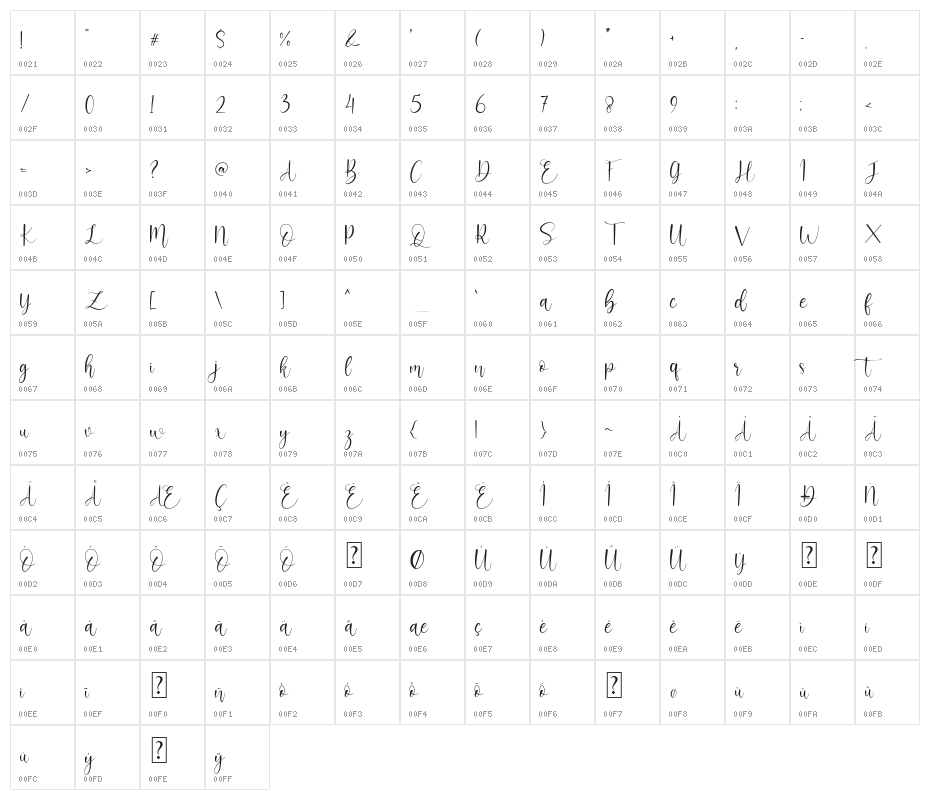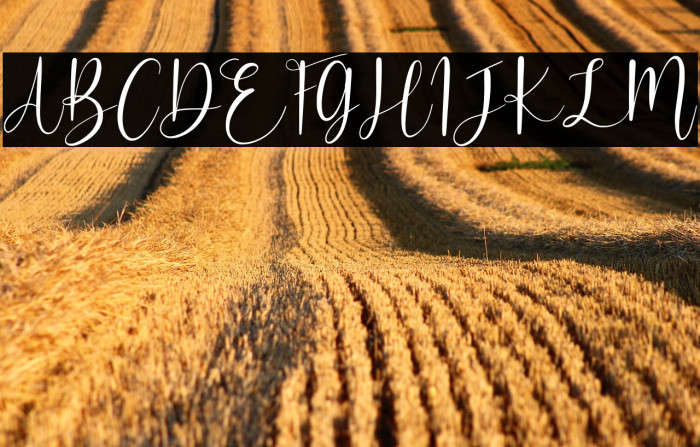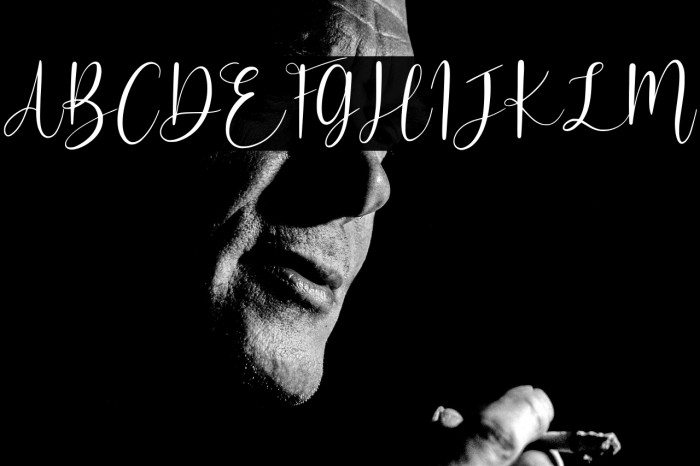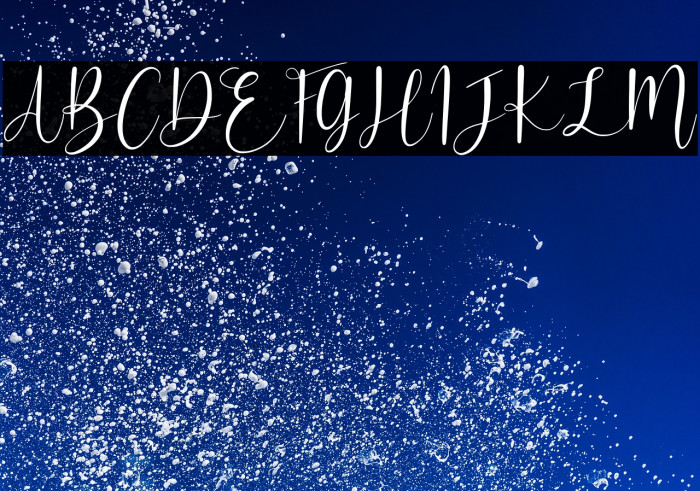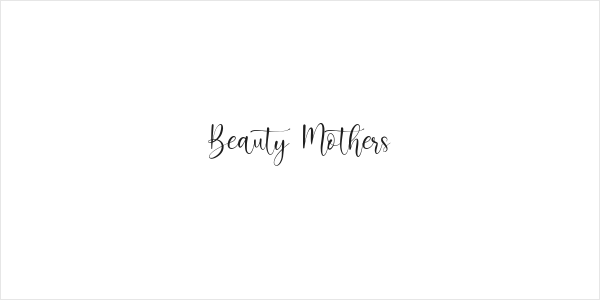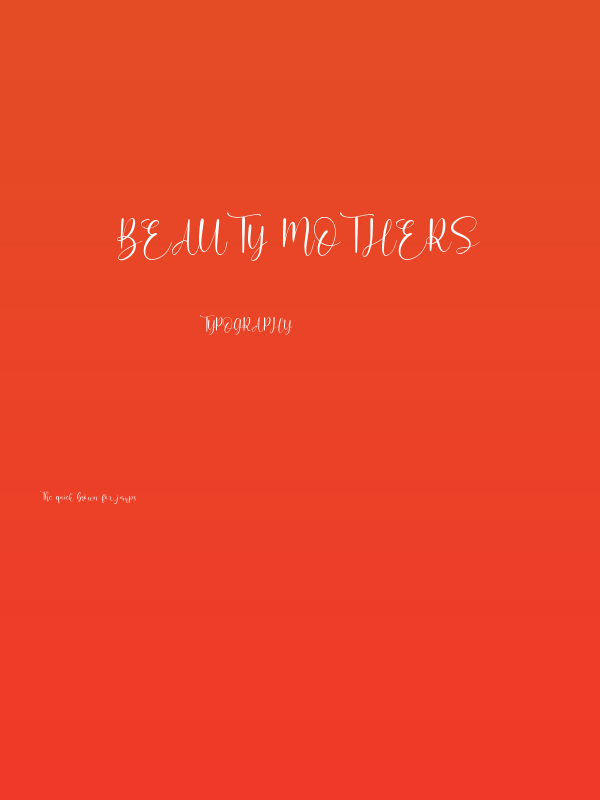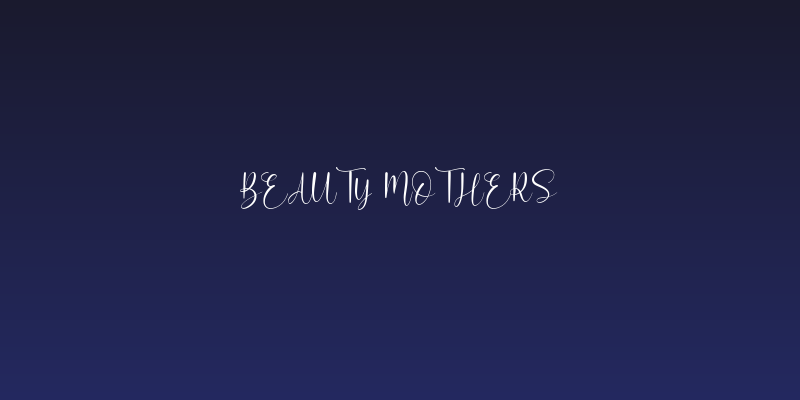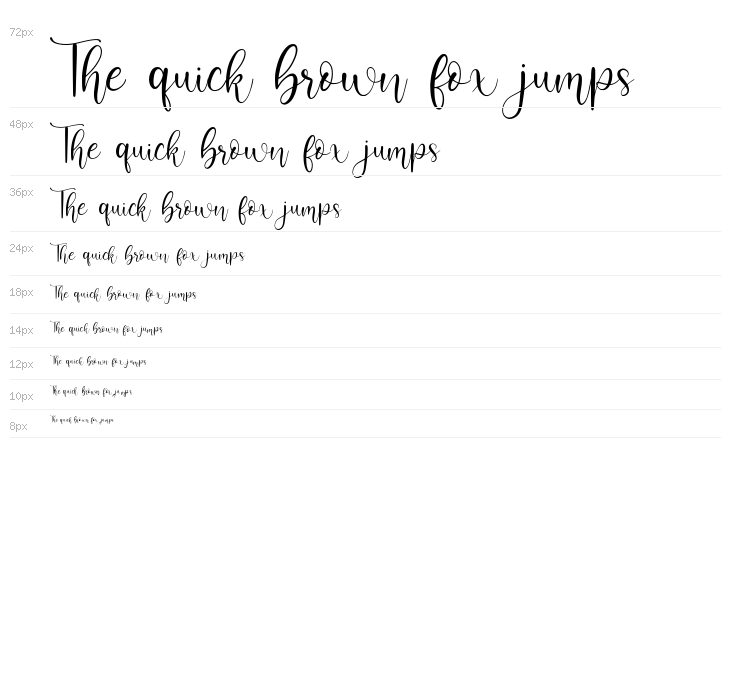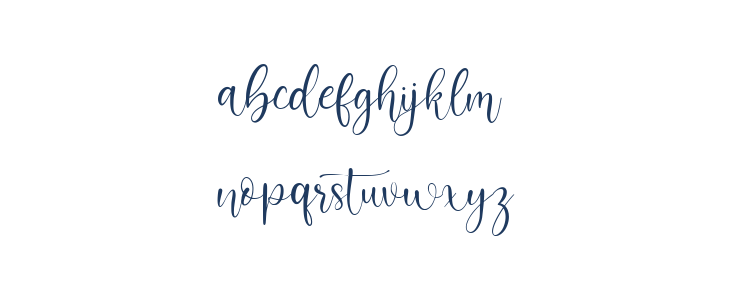
Beauty Mothers Font
Beauty Mothers Description
This font exudes elegance and charm with its flowing, cursive style. The characters are delicately crafted, featuring smooth curves and graceful loops that give it a handwritten feel. The uppercase letters are tall and slightly narrow, while the lowercase letters maintain a consistent flow, enhancing the script's fluidity. The numbers and special characters are designed to match the overall aesthetic, ensuring a cohesive look. This font is perfect for adding a personal touch to any project, offering a sense of sophistication and warmth.
| Overall Style | Elegant, Handwritten |
| Use Case | Logos, Invitations, Personal stationery |
| Proposed Projects | Ideal for wedding invitations, greeting cards, branding, and personal stationery. |